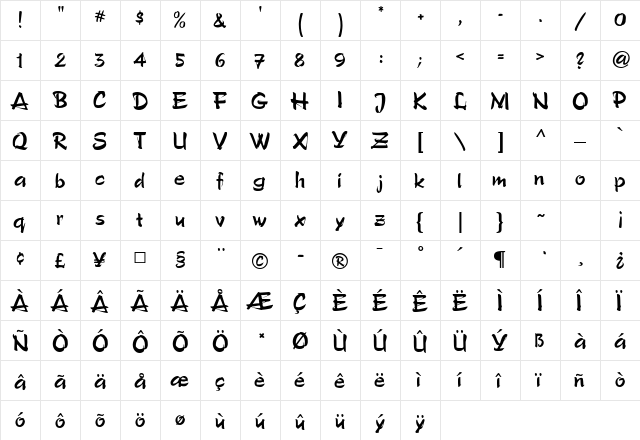
Polo Brush
Design Context for Polo Typeface
Polo flows with the natural rhythm of handwritten lettering, making it ideal for designs that call for warmth and personal expression.
Font Pairing: Combine Polo with a simple geometric sans for maximum contrast — the tension between flowing curves and clean structure is a classic typographic pairing.
Pro Tip: Pair Polo with a clean sans-serif for supporting text. The contrast between fluid script and geometric structure creates an elegant typographic hierarchy.